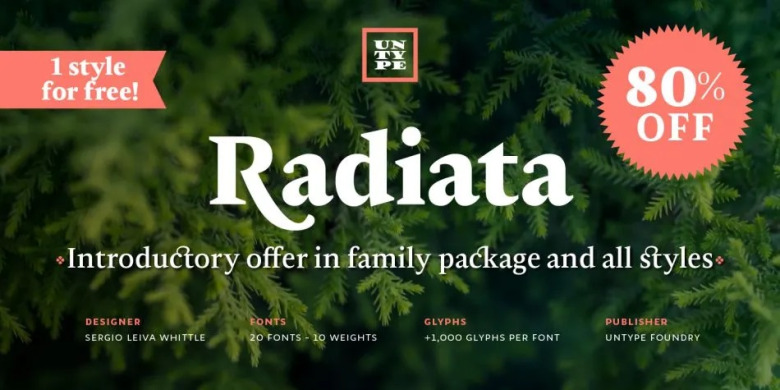
Radiata Serif Font Family
Radiata Serif Font
Radiata Font is a modern style serif typeface with unique curves and look. This font is available with all set of capital and lowercase letters, as well as numerals, punctuation. It’s designed by Sergio Leiva Whittle.
Radiata looks strong on its structure yet delicate on its terminals and serifs, and bring a sense of modern rationality to the composition because its proportions and vertical stress at the time thata flourishes organically and full of details on display settings.
Radiata Serif Font